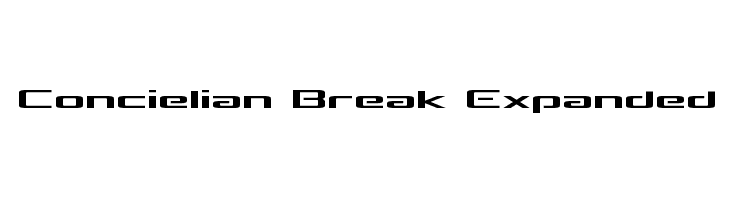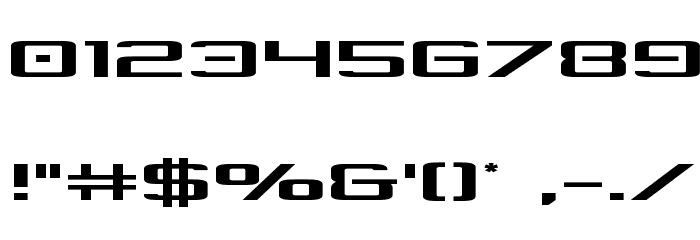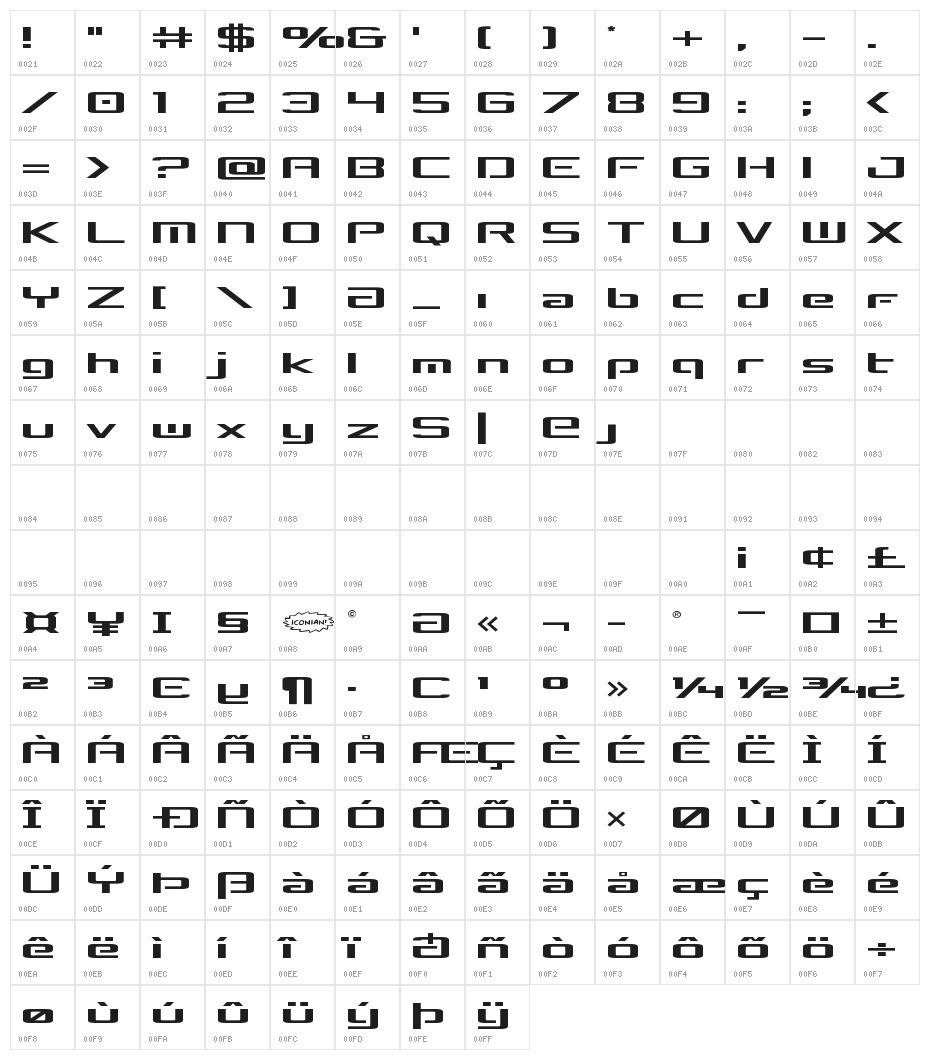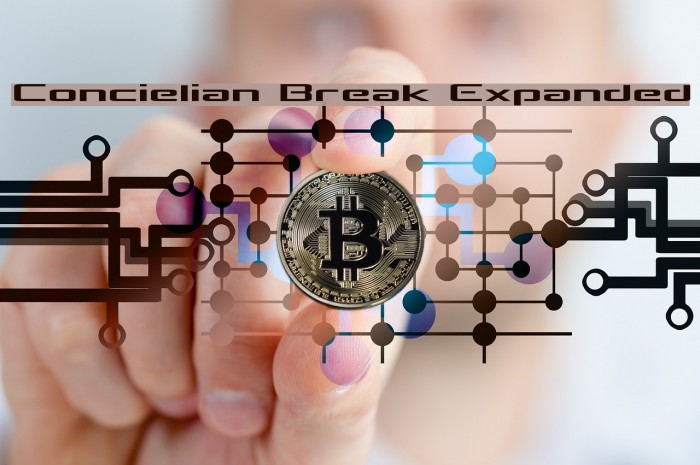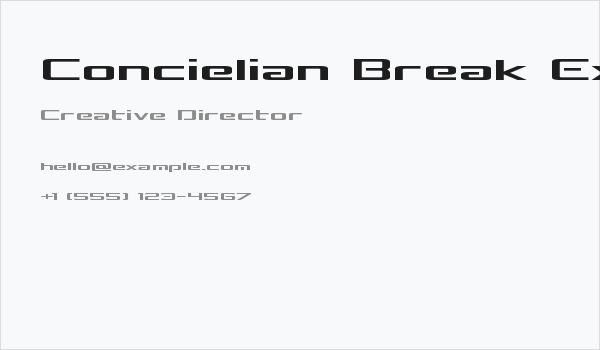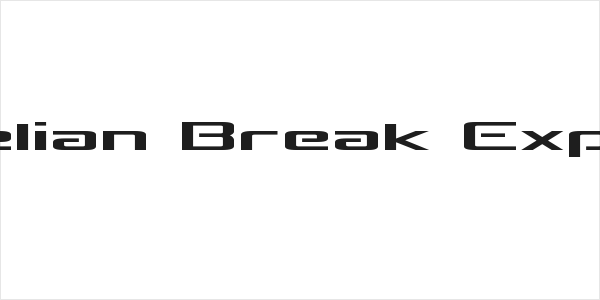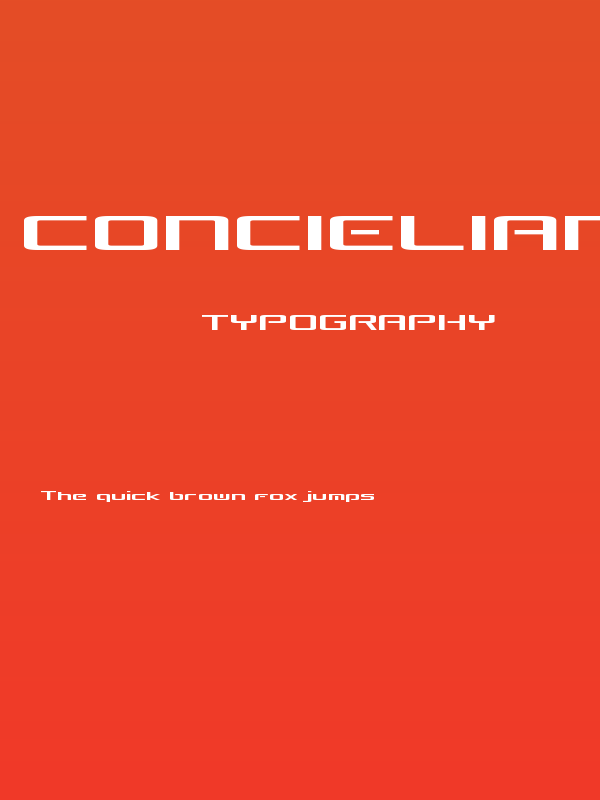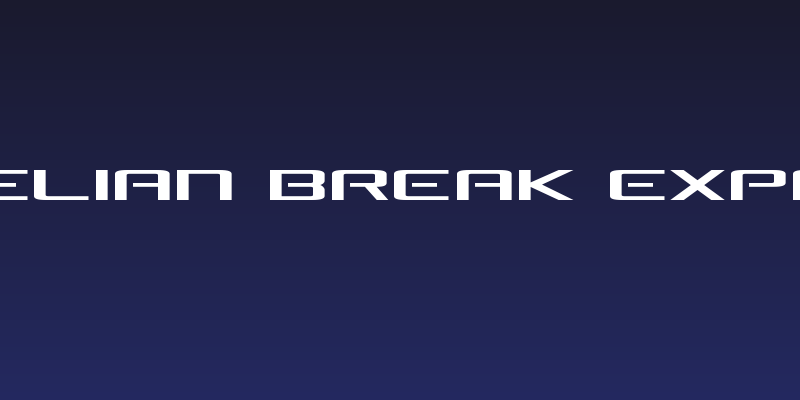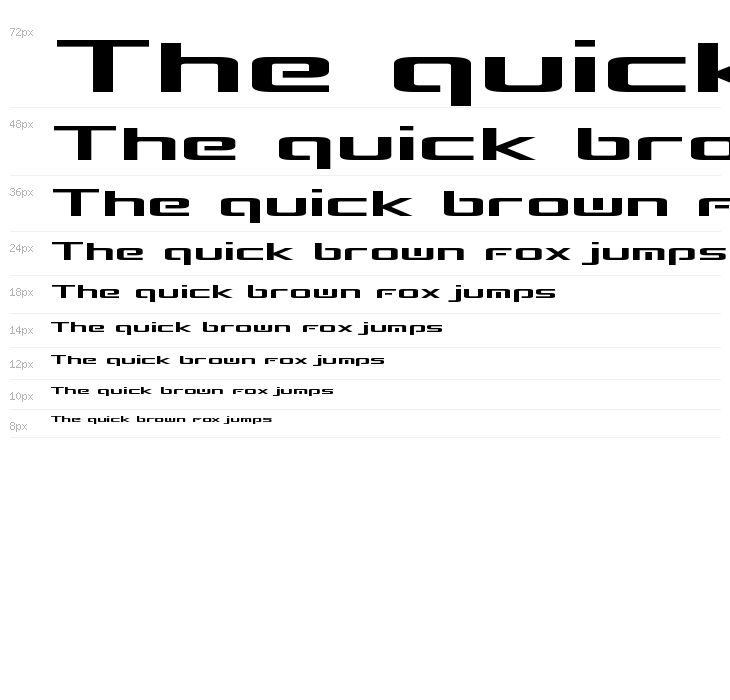
Concielian Break Expanded Font
Concielian Break Expanded Description
This font features a futuristic and geometric design with a distinctly modern appeal. The characters are bold and expanded, giving them a strong presence on the page. The uppercase letters are uniform in height, while the lowercase letters maintain a consistent baseline, enhancing readability. The numerals are clear and distinct, matching the overall style of the alphabet. Special characters are well-integrated, maintaining the font's cohesive look. The design is clean and minimalistic, making it suitable for a variety of contemporary applications.
| Proposed Projects | Ideal for technology branding, sci-fi themed projects, modern advertising, and digital interfaces. |